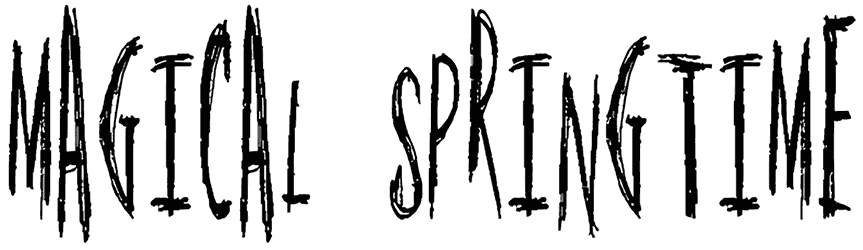
Magical Springtime Font
We have just added a marvelous horror font, mostly known as Magical Springtime, to our font collection. You can make the best possible outcome out of this masterpiece by utilizing it in your social media posts, stickers, graffiti, product packaging, or street posters.
Aside from the lack of lowercase letters, this artwork comes with crooked characters and has the real potential to bring a sense of uniqueness, dread, fear, or tenderness to all of your creative ideas.